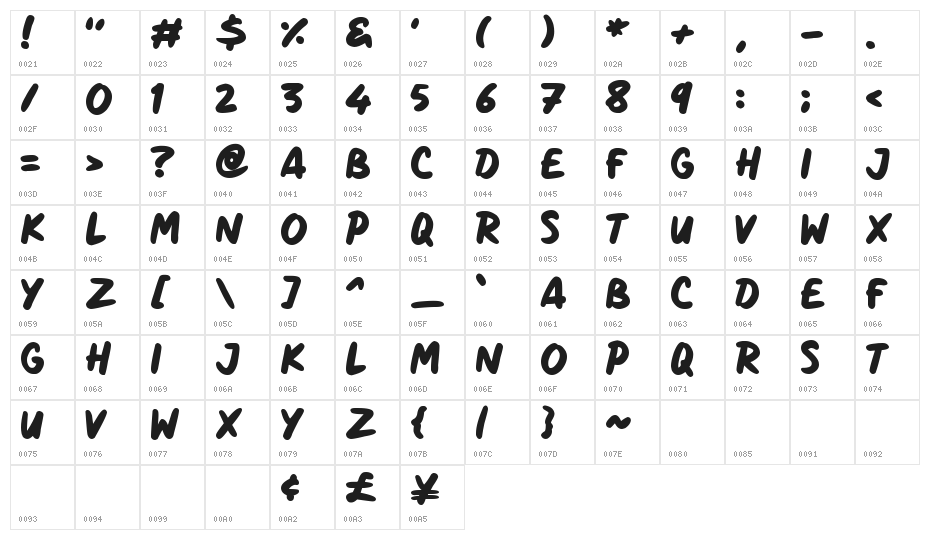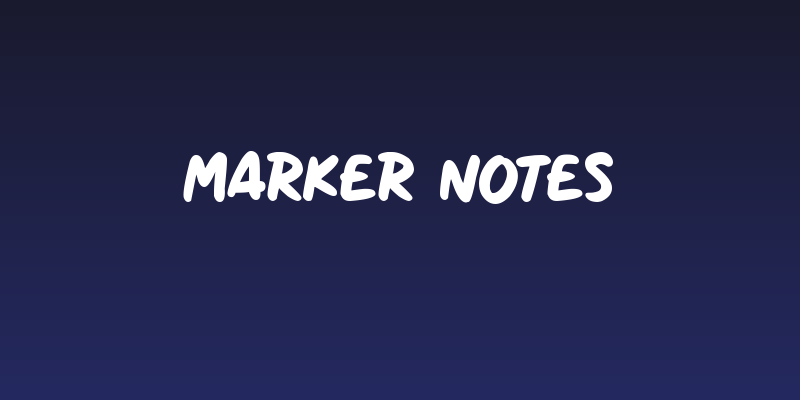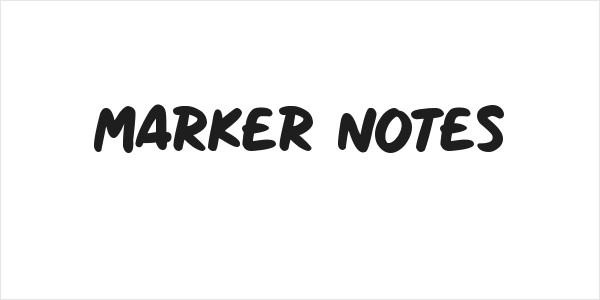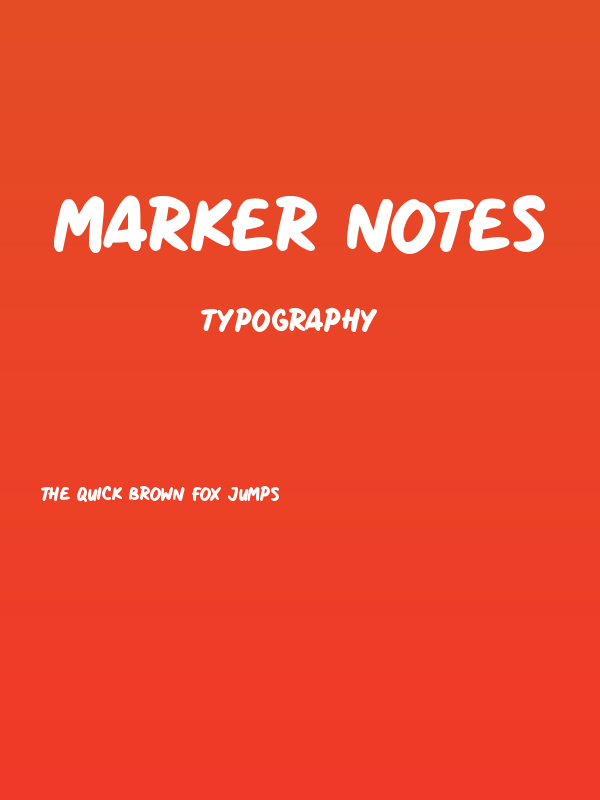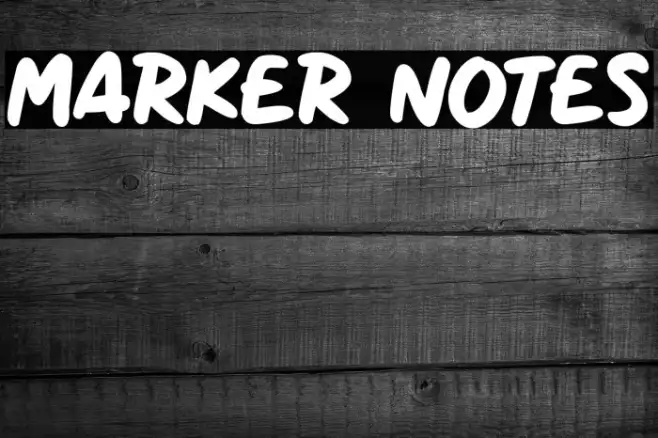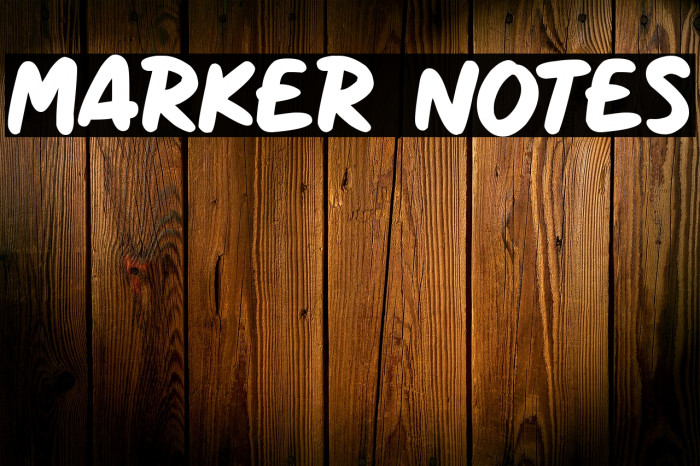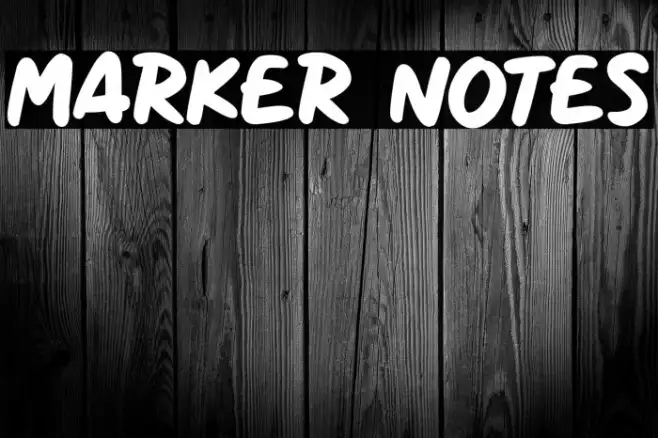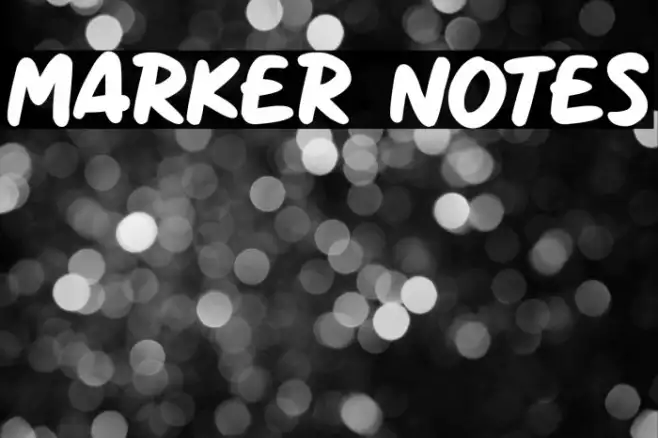
Marker Notes Font
Marker Notes Description
This font exudes a playful and energetic vibe, characterized by its bold and rounded strokes. The letters are slightly slanted, giving a handwritten feel that mimics the fluidity of marker strokes. Each character is distinct yet cohesive, maintaining a consistent thickness throughout. The numbers and special characters follow the same style, ensuring uniformity across all elements. This font is ideal for projects that require a personal touch, such as invitations, posters, or branding materials that aim to convey a sense of approachability and creativity.
| Overall Style | Playful, Energetic |
| Proposed Projects | Ideal for invitations, posters, branding materials, and any project needing a personal, creative touch. |